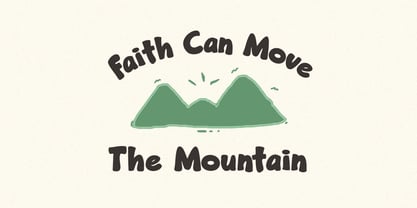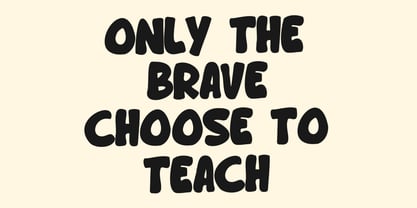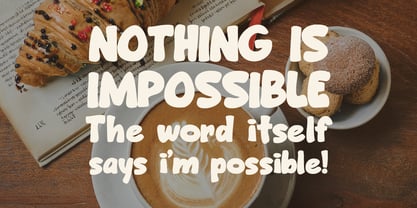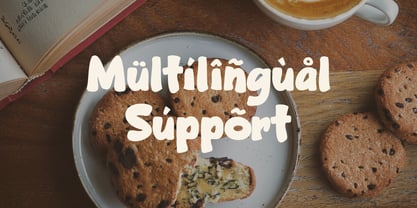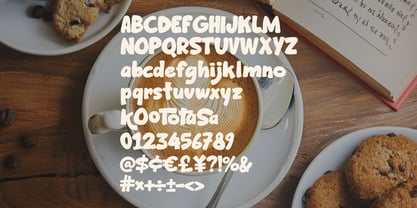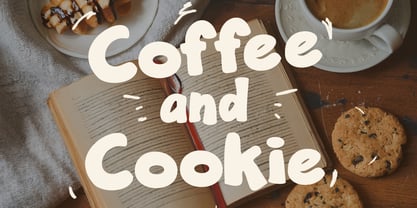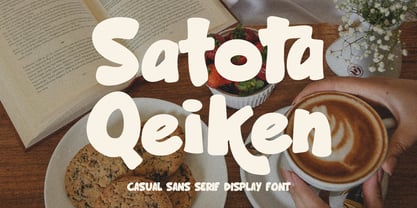
MC Satota Qeiken
by Maulana Creative
The MC Satota Qeiken Font Family was designed by Gilang Maulana and published by Maulana Creative. MC Satota Qeiken contains 1 styles. More about this family
Satota Qeiken - Casual Sans Serif Display Font Bring a dash of fun and a whole lot of charm to your designs with Satota Qeiken! This unique casual sans serif font offers a chunky, friendly, and bouncy feel, making it perfect for projects that need to stand out with a playful yet confident voice. Its bold, rounded shapes are highly legible and instantly appealing, capturing attention in any medium. Satota Qeiken is the go-to font for: - Branding and Logos: Create memorable and approachable brand identities for cafes, bakeries, children's products, casual apparel, and more. - Packaging Design: Give your product packaging a handcrafted, artisanal touch that leaps off the shelf. - Social Media & Advertising: Make your posts and campaigns pop with engaging headlines and vibrant call-outs. - Merchandise: Perfect for mugs, motivational, and any design needing a bold, statement-making typeface. - Kids' Products & Books: Its friendly aesthetic is ideal for educational materials, toys, and storybooks.
Designers: Gilang Maulana
Foundry: Maulana Creative